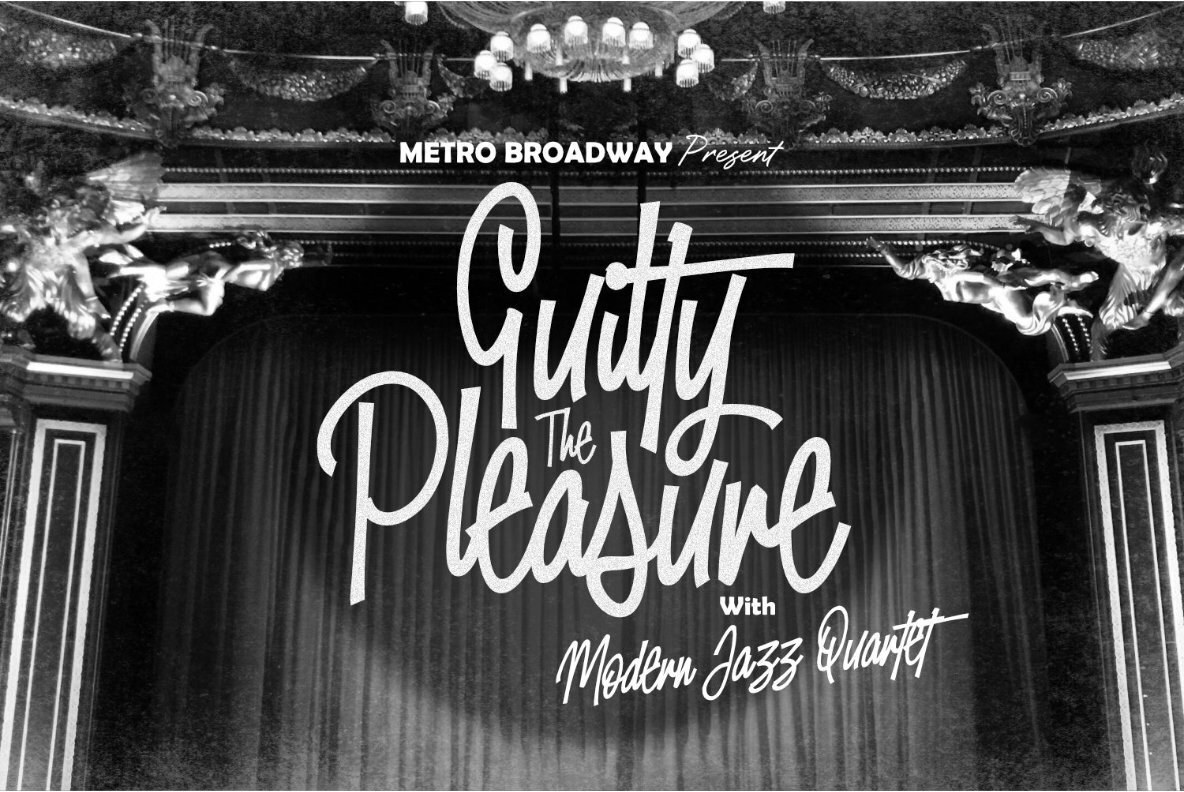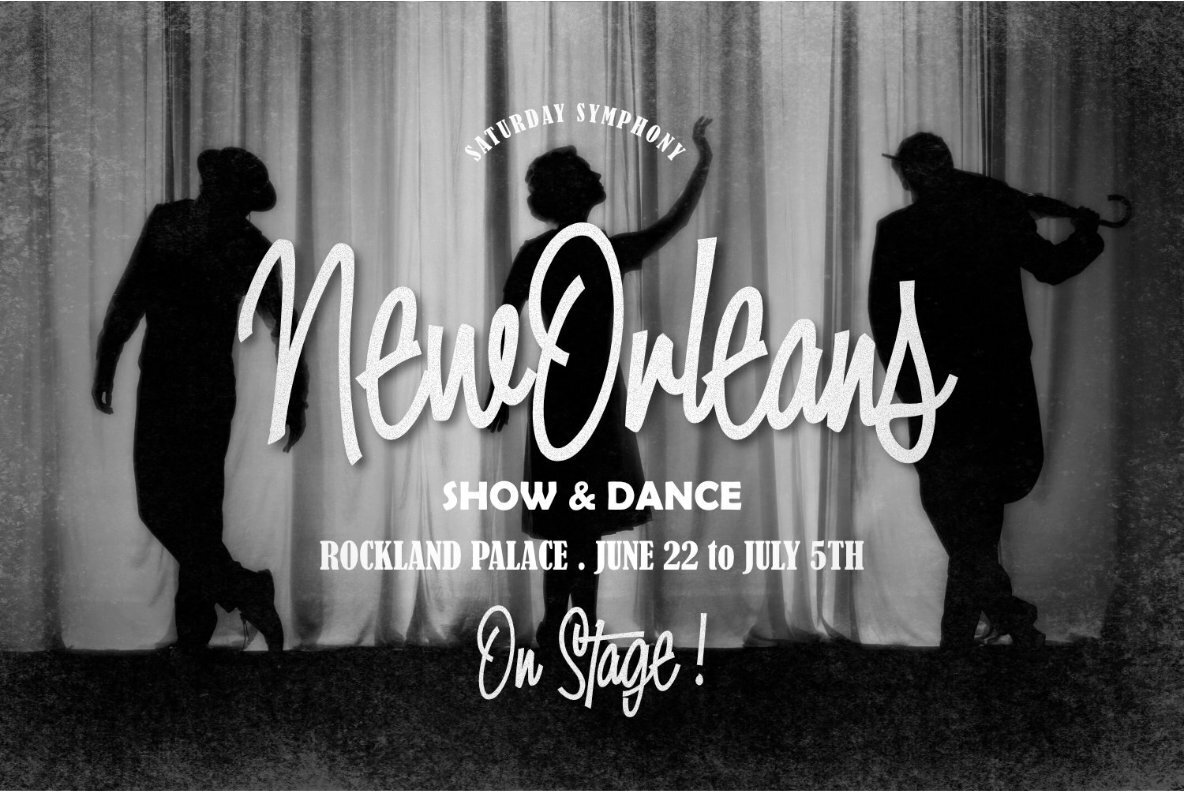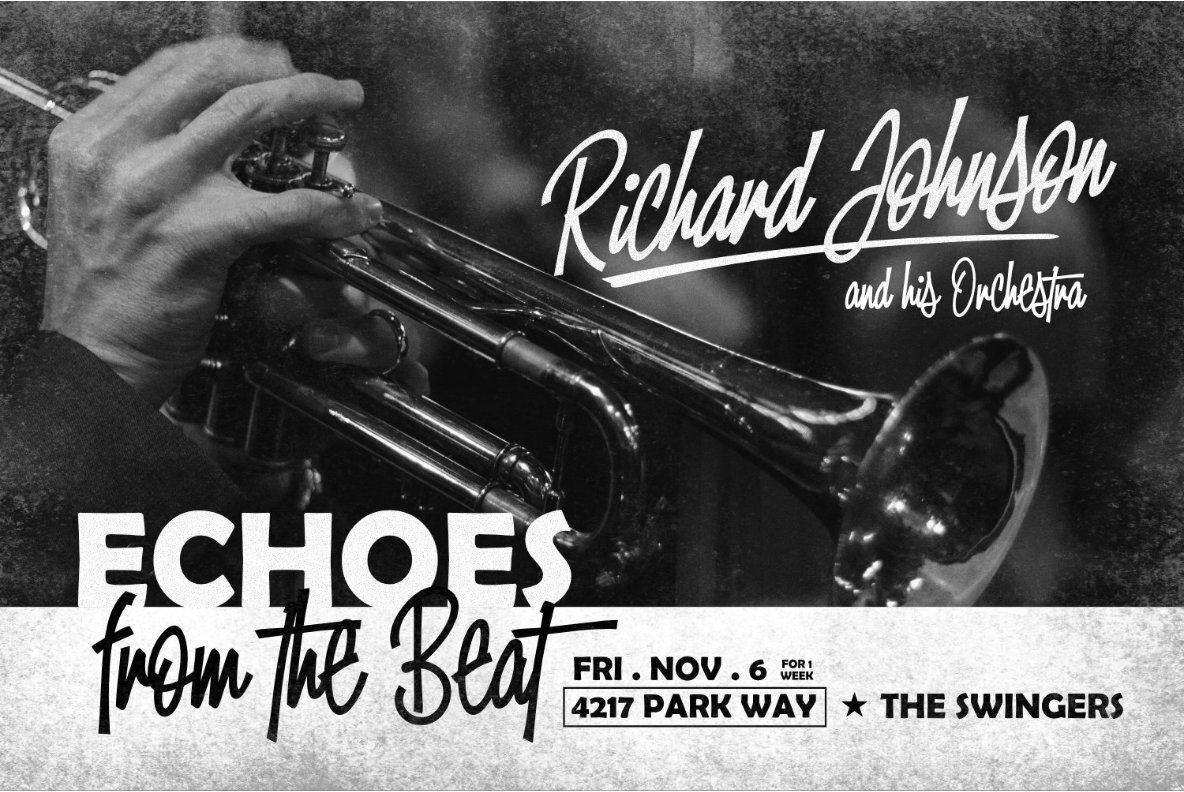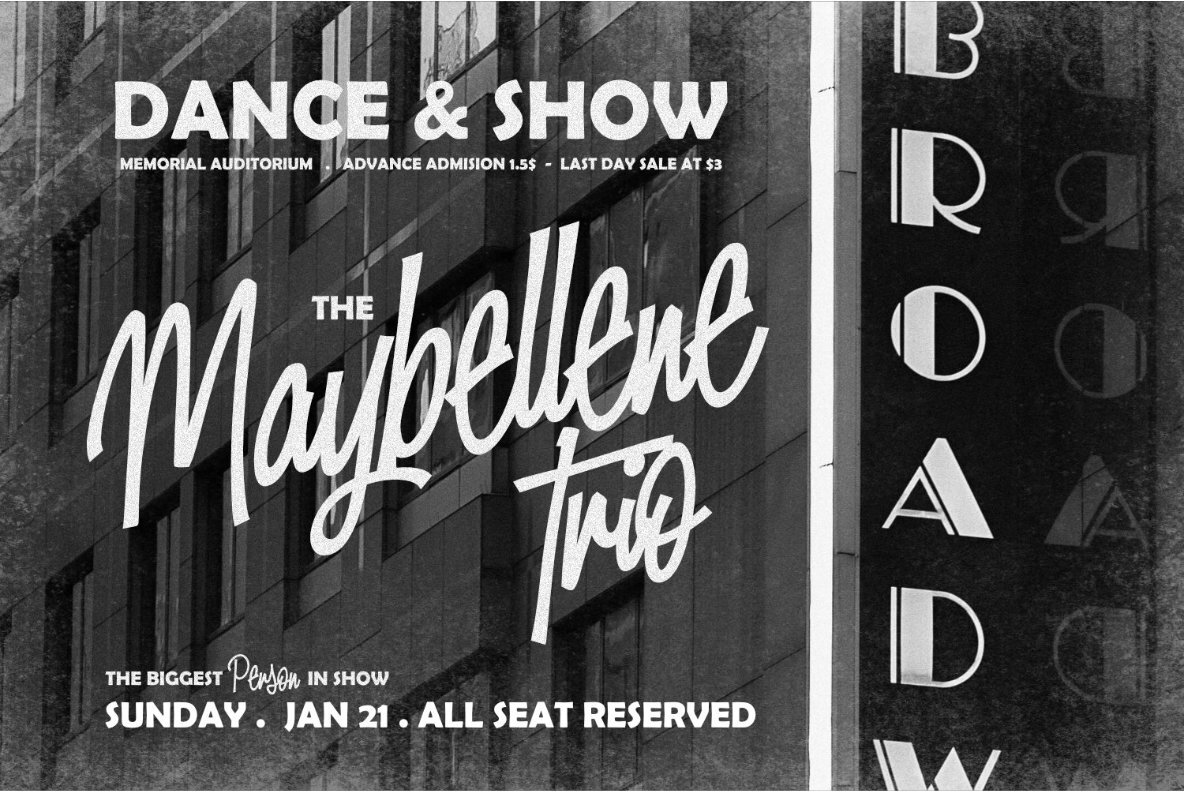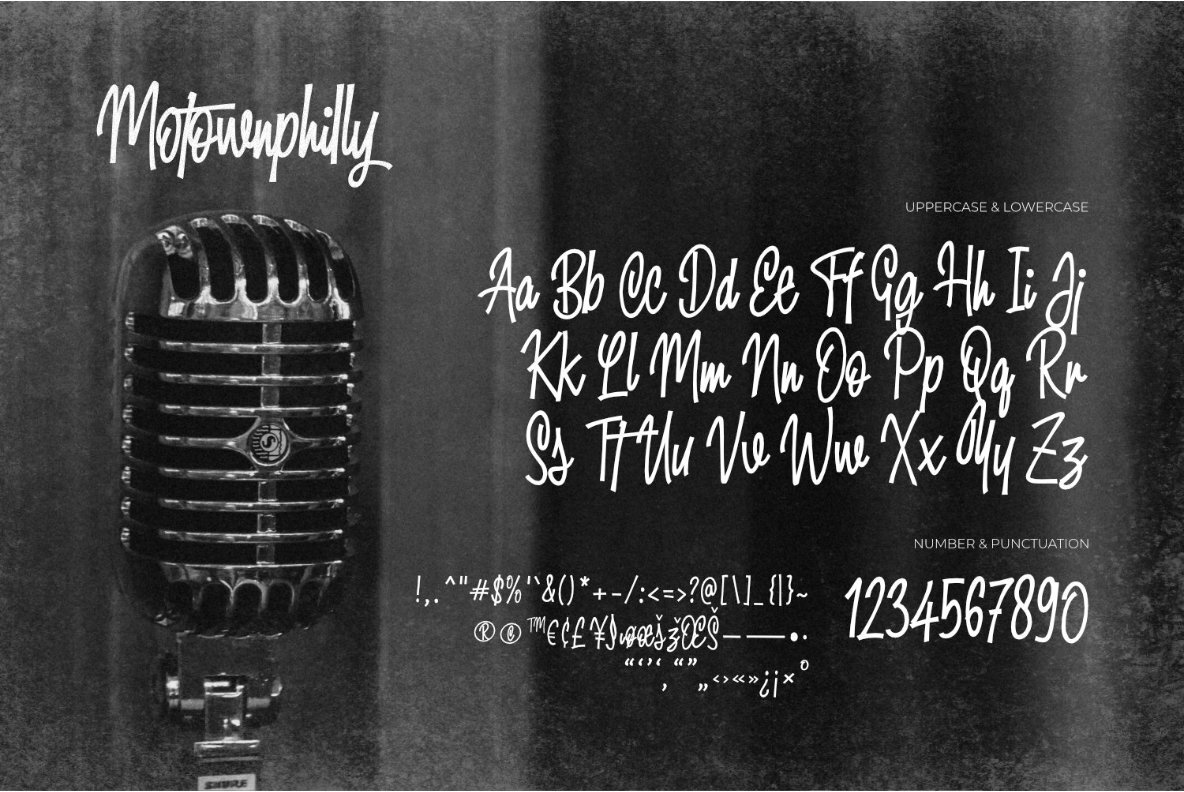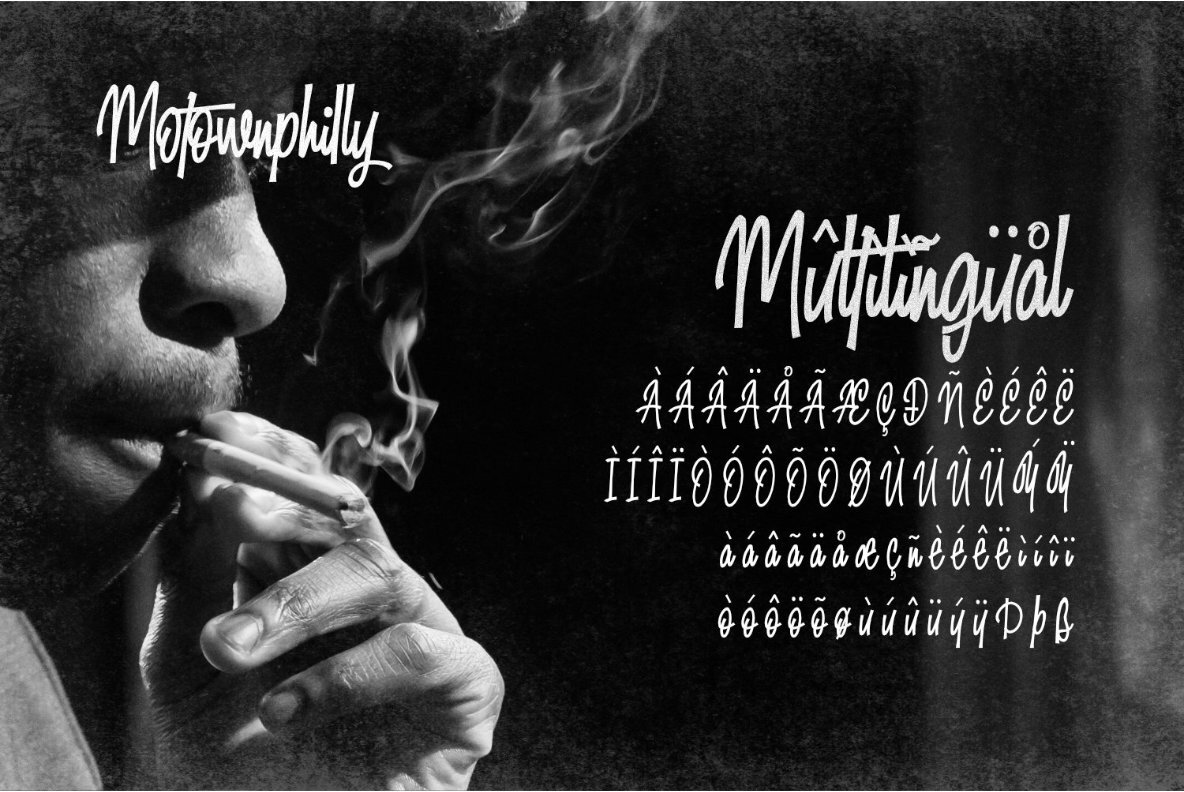
Motownphilly is a handwritten script typeface inspired by the typography styles of Movie titles and the American Classic Show & Orchestra in 1950s. This typeface is designed to give the appearance of an expressive style. Motownphilly has bold, raw lettering lines, with wild strokes. A style commonly used in print ads, magazine, and sign advertisements of the era.
This typeface is perfect for posters, newspaper, magazine ads, and also good for vintage product, food & beverages, quotes, or simply as a stylish text overlay to any background image.